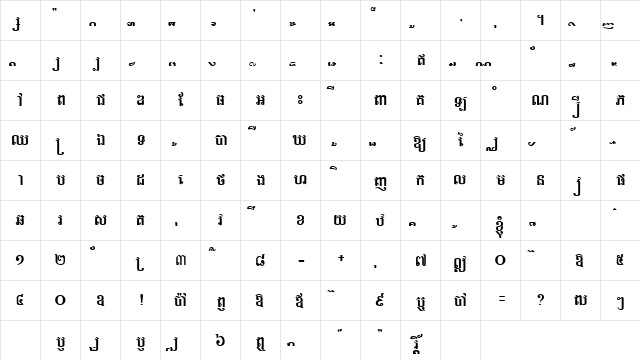
Tlaprum Regular
Design Context for Tlaprum Typeface
Tlaprum is a composed and adaptable typeface that performs quietly and consistently across a wide range of design contexts.